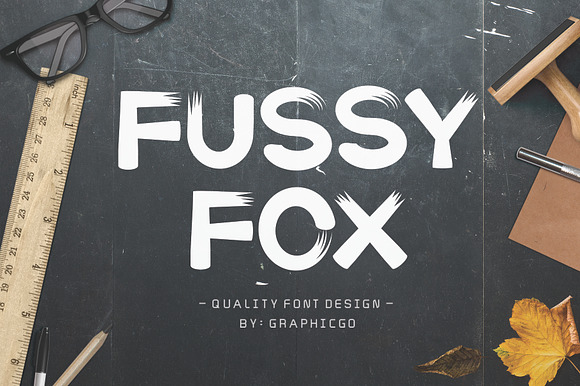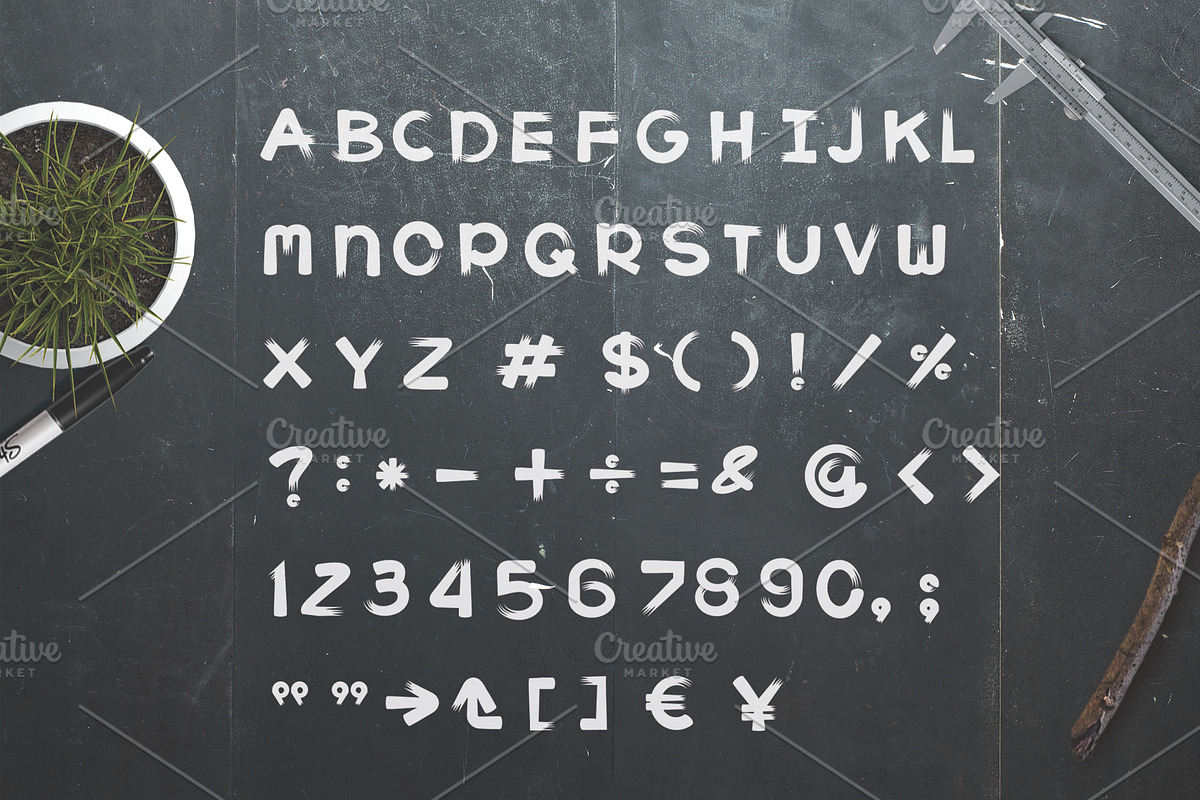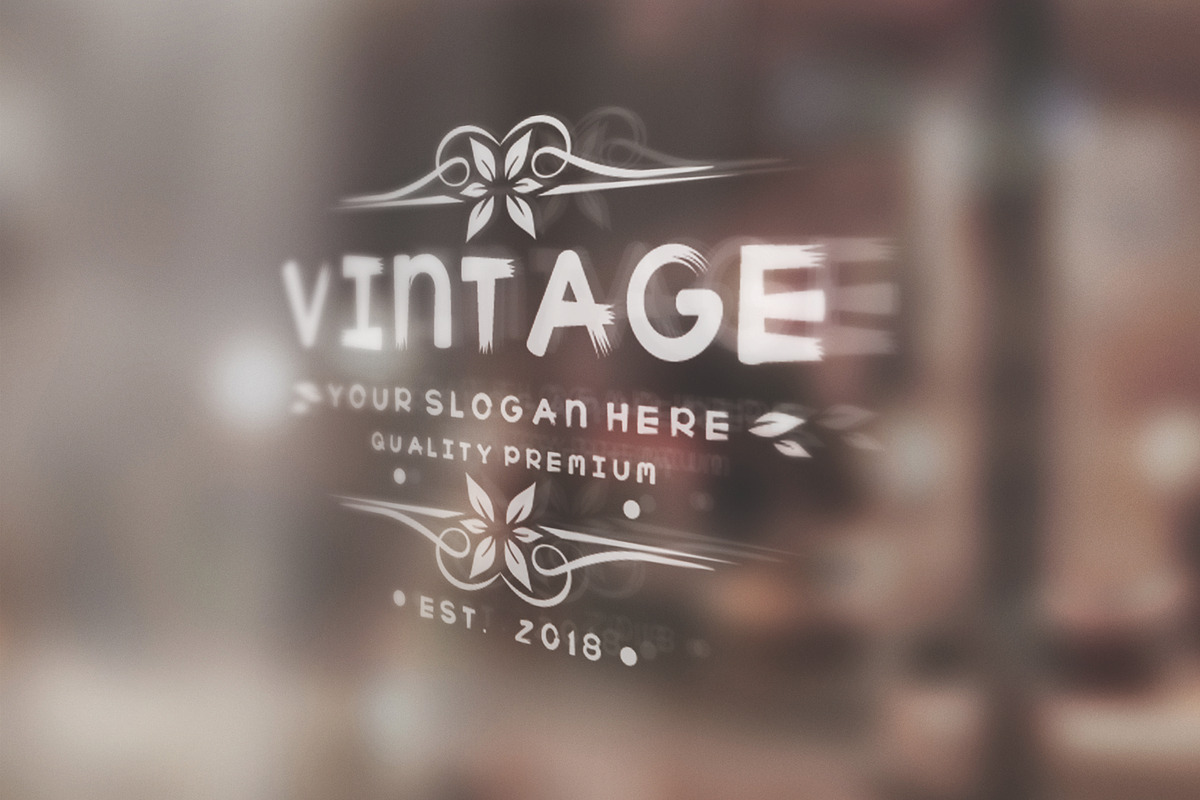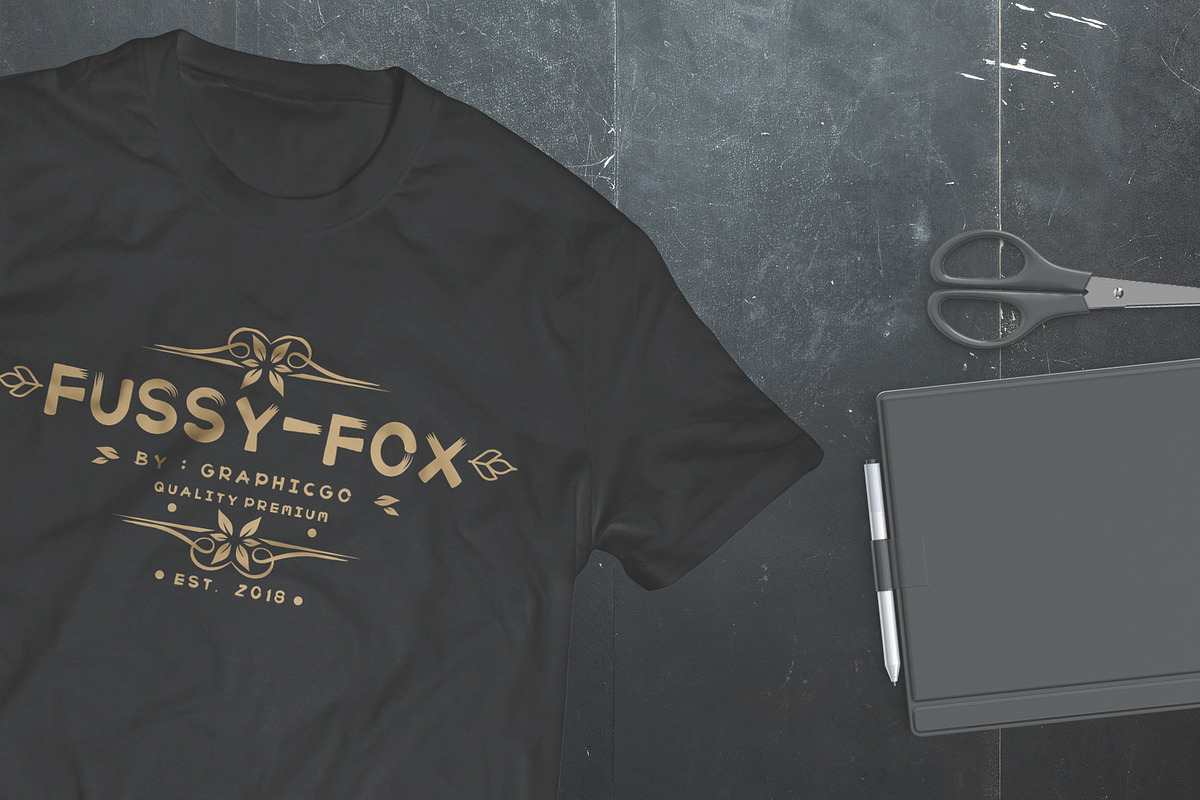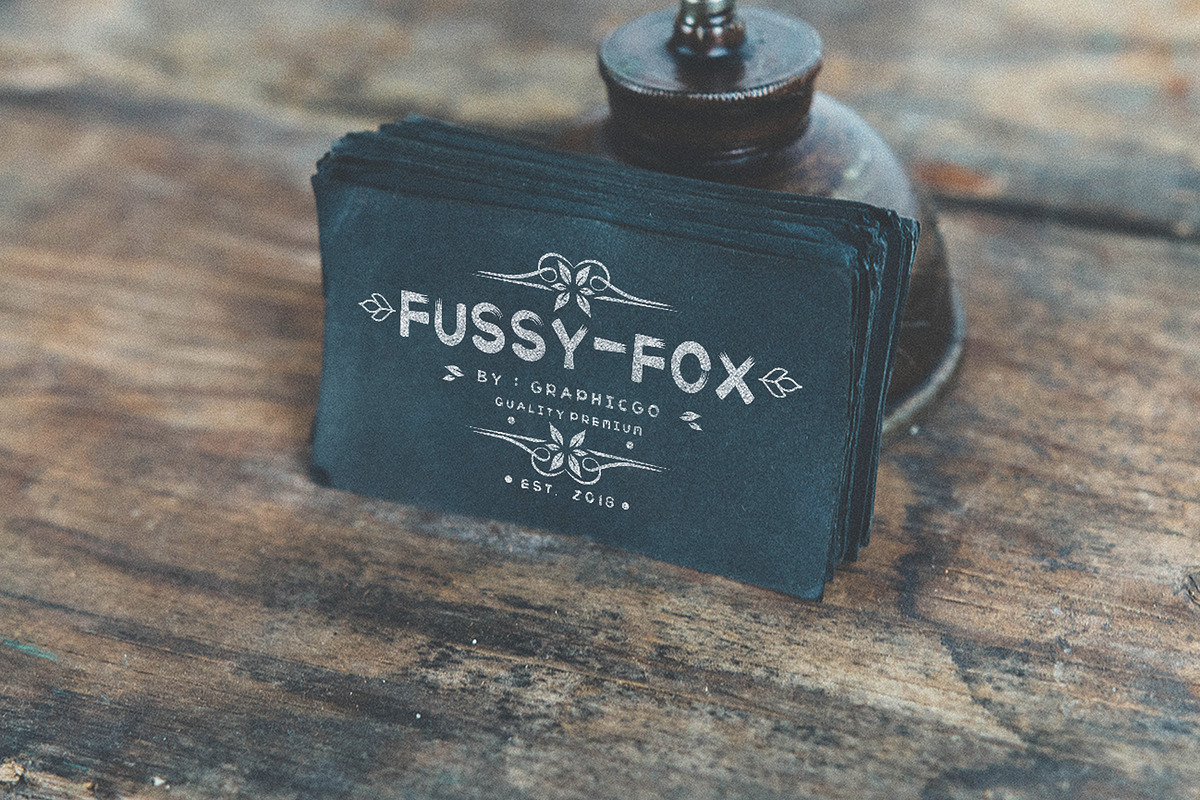
Fussy-Fox Font
Fussy Fox Font is bold brush writing style (like fox tails). It 's perfect for informal look cards, posters, wall art, branding, diy projects, greeting cards, labels, quotes, packaging, websites and much more.
Why Fussy-Fox Font is worth a look
Fussy-Fox Font by Graphicgo fits naturally into Branding, posters, packaging, typography.